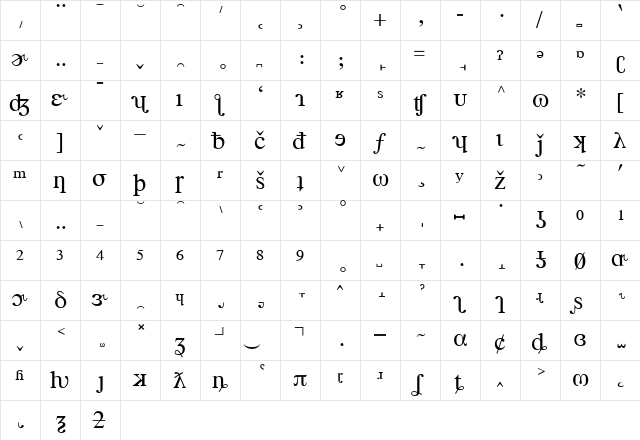
Times PhoneticAlternate Regular
Design Context for Times PhoneticAlternate Typeface
Times PhoneticAlternate is a composed and adaptable typeface that performs quietly and consistently across a wide range of design contexts.